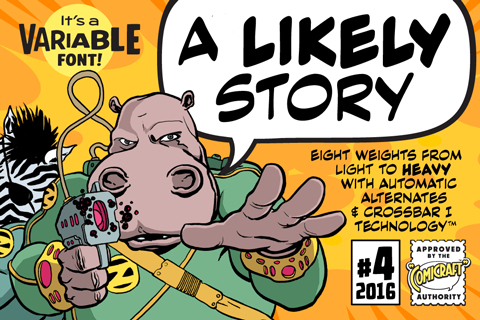
- Eight weights with alternate uppercase
Get ready to inject a giant dose of playful charm into your pages with A Likely Story Font from Comic Book Fonts! Handcrafted by master letterer John Roshell, this friendly typeface feels like it popped straight out of a classic bedtime tale or Sunday morning cartoon strip.
Are your characters spinning tall tales, planning silly antics, or going on backyard adventures? This delightfully expressive lettering brings an instant smile to every page, making it an absolute must-have comic young readers font for early learning books, vibrant graphic novels, and whimsical middle-grade series.
If you are hunting for the best comic book fonts to capture young imaginations, this bouncy, rounded set offers clean legibility alongside four versatile weights to match any playful tone. Drop these cheerful letterforms into your children’s books, fun activity pads, or quirky webcomics to spark instant joy and keep your readers turning pages with wide-eyed wonder!